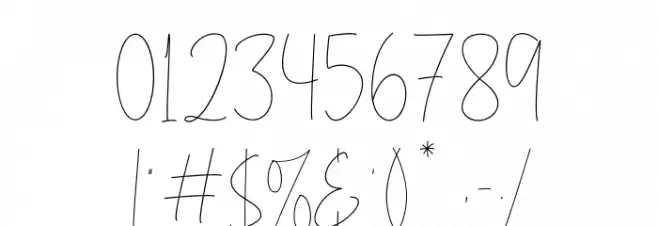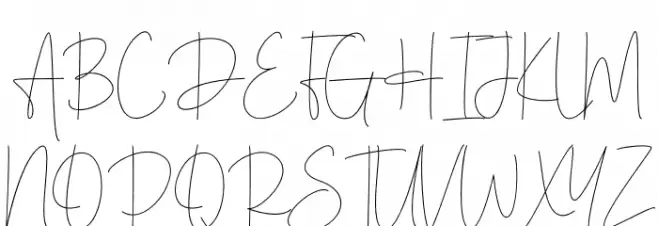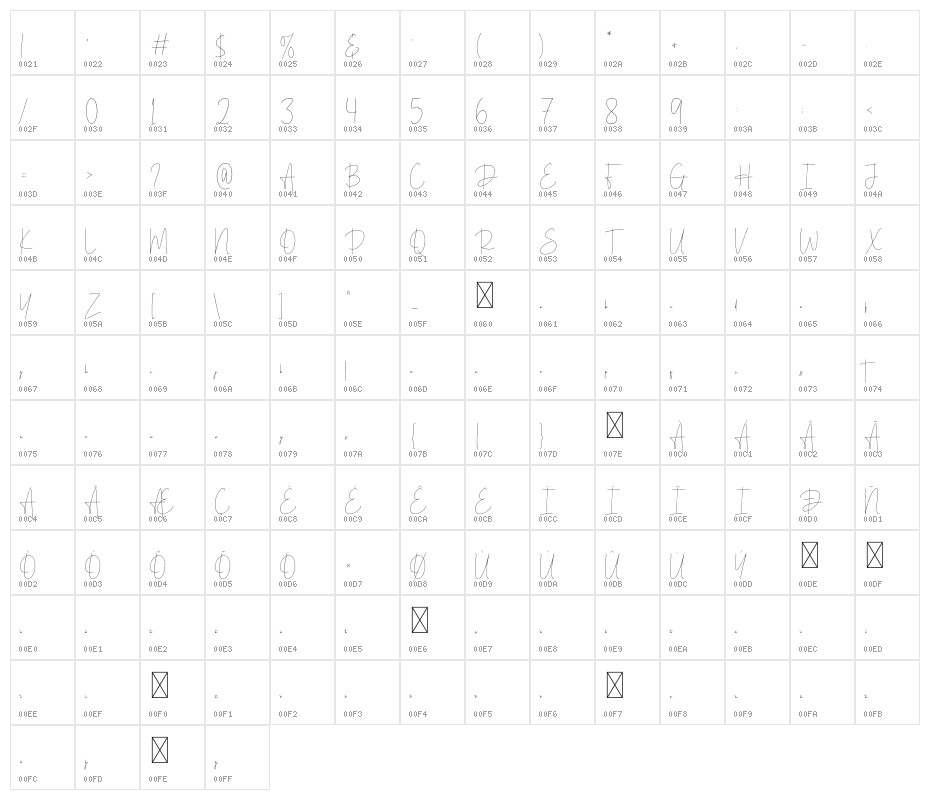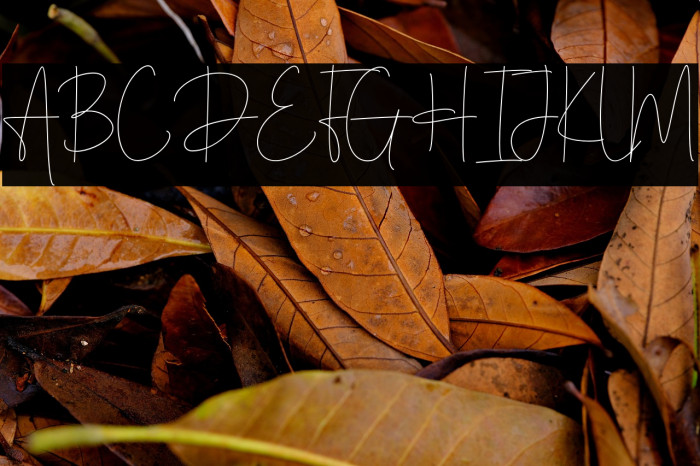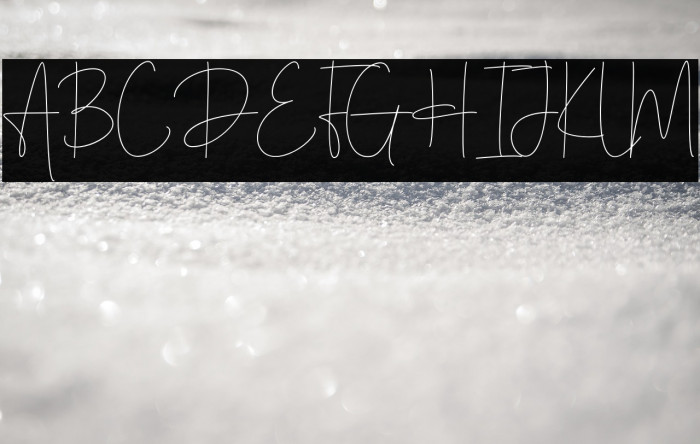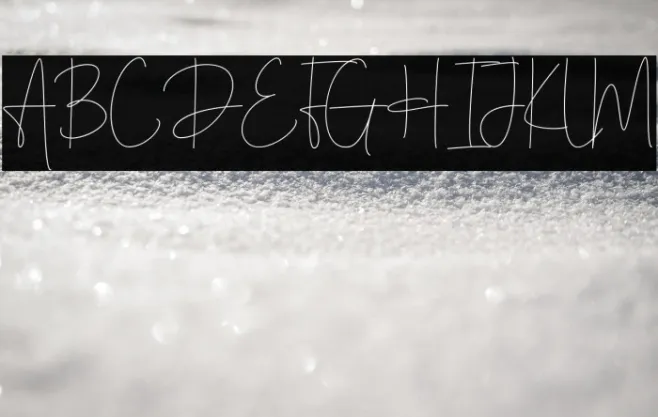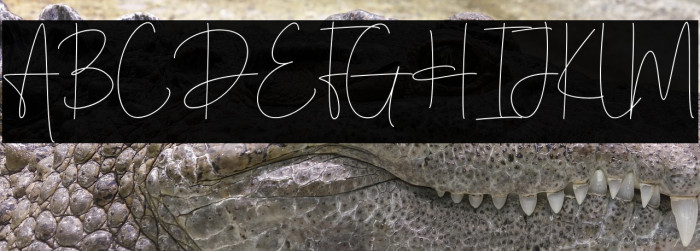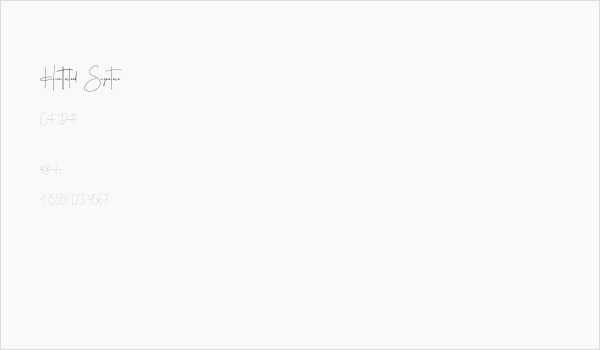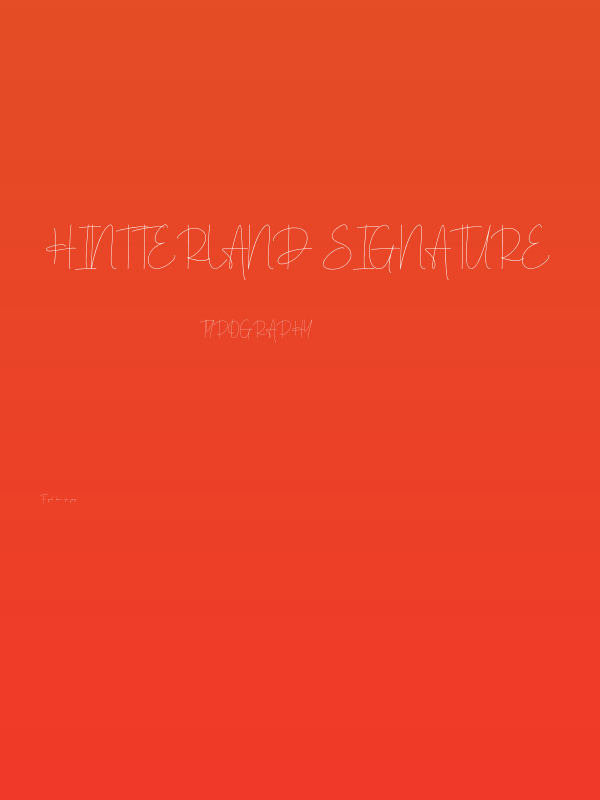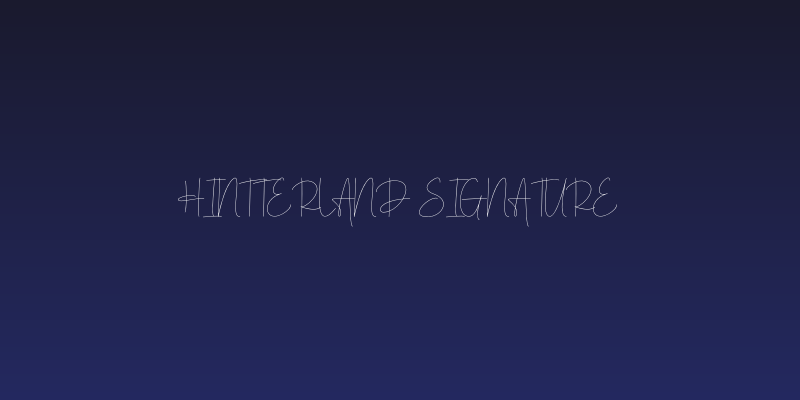
Hintterland Signature Font
Hintterland Signature Description
A delicate, handwritten font with a signature style, featuring thin strokes and a casual, flowing appearance.
| Use Case | Logos, Signatures, Invitations |
| Proposed Projects | Personal branding, invitations, greeting cards. |